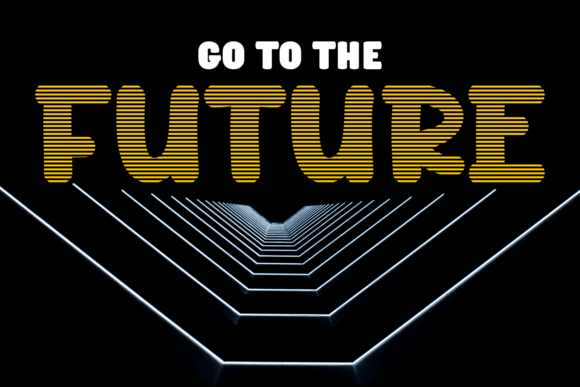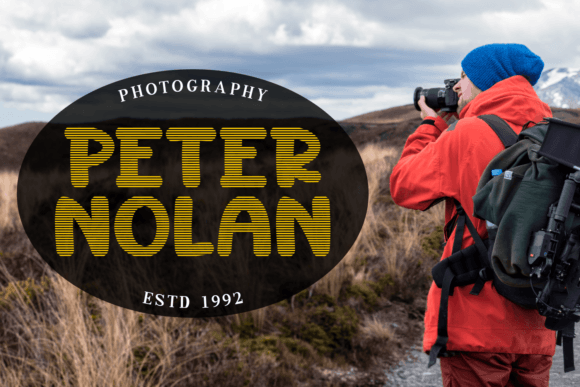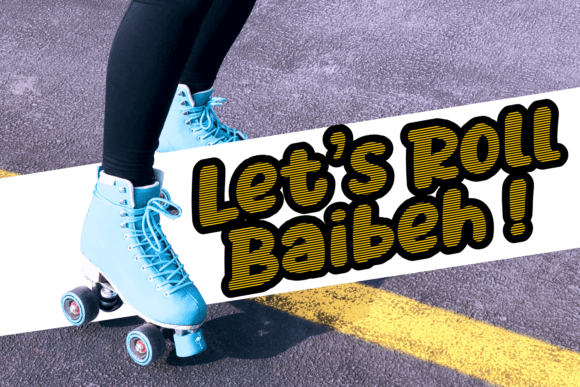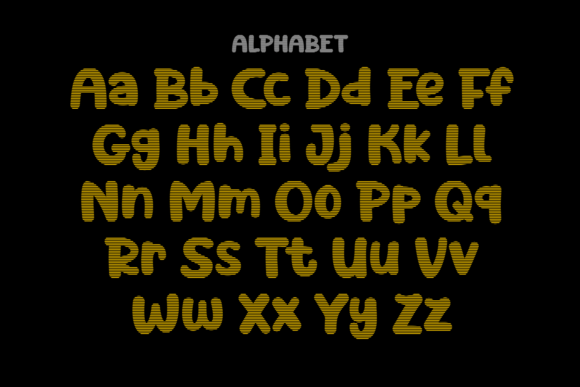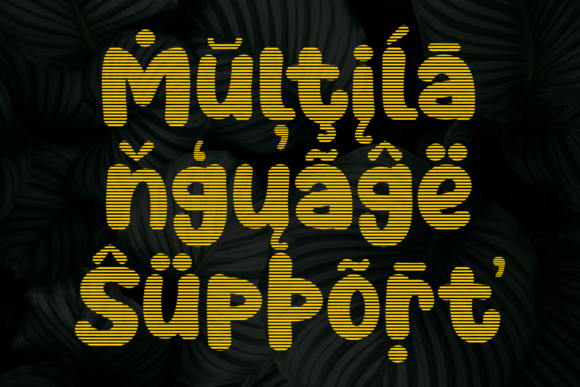
The Designer’s Delight: Exploring the Byline Font
Have you ever been in the middle of a design project, and suddenly, you’re stuck on finding the perfect font? I recall a recent experience where I was working on a branding project for a trendy boutique, and I just couldn’t find a font that captured the essence of the brand. That’s when I stumbled upon the Byline Font, and it instantly became my go-to typeface. In this article, we’ll dive into the world of Byline Font, exploring its features, uses, and everything in between.
A First Impression: What Makes Byline Font Special
Byline is a fun display font featuring characters made out of thin lines. Its unique design makes it perfect for adding a touch of elegance and sophistication to your creations. The font’s thin lines give it a delicate, hand-drawn feel that’s sure to make your designs stand out. Whether you’re a designer, crafter, or creative hobbyist, Byline Font is an excellent addition to your typography toolkit.
Here’s what I love about Byline Font:
- ✨ Unique and eye-catching design
- ✅ Highly versatile and adaptable
- 🎉 Perfect for display text, titles, and headings
- 💻 Works well on both digital and print platforms
However, there are a few quirks to consider:
- 🤔 May not be suitable for body text or small font sizes
- ⚠️ Limited legibility at very small sizes or from a distance
The Story Behind Byline Font: Designer Inspiration
The story behind Byline Font is one of creativity and experimentation. The designer, inspired by the world of art and design, aimed to create a font that would add a touch of elegance and sophistication to any project. Through a process of trial and error, the designer refined the font, resulting in the beautiful and unique Byline Font we know today.
Q: What is Byline Font best used for?
A: Byline Font is perfect for display text, titles, and headings. Its unique design makes it ideal for adding a touch of elegance and sophistication to your creations.
Q: Is Byline Font suitable for body text?
A: While Byline Font is beautiful, it may not be the best choice for body text. Its thin lines and unique design make it more suitable for display text and headings.